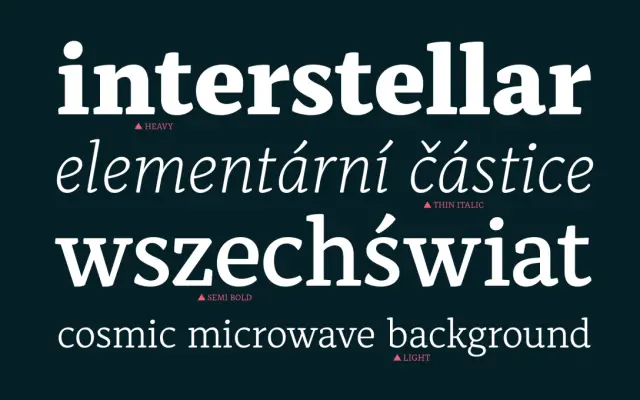
Alkes
Fontfabric · Kaja Słojewska · 2020
A humanist serif originating from Kaja Słojewska's graduation project at the University of Reading, refined into a 14-style family covering Latin, Cyrillic and Greek.
Developed from a University of Reading graduation project and later refined with Plamen Motev and Nikolay Petroussenko at Fontfabric, it draws on cosmic naming and a humanist structure defined by generous x-height, open counters and angled stress. The family runs seven weights from Thin to Black, each with a matching italic, and carries an extensive OpenType feature set including small caps, old-style figures, contextual alternates and fractions. Suited to editorial, publishing and multilingual branding work.
Fontfabric describe it as a humanist serif, with generous x-height, open counters and subtle angled stress across a broad weight range, balancing digital precision with analogue warmth.